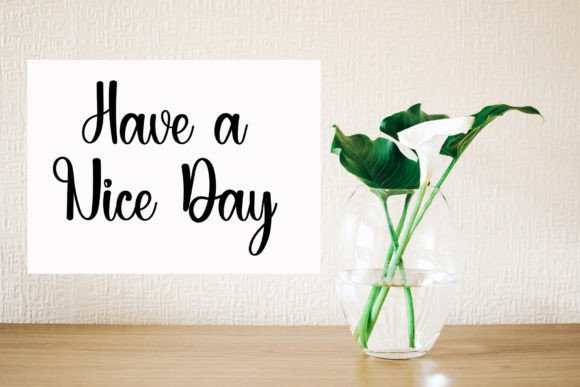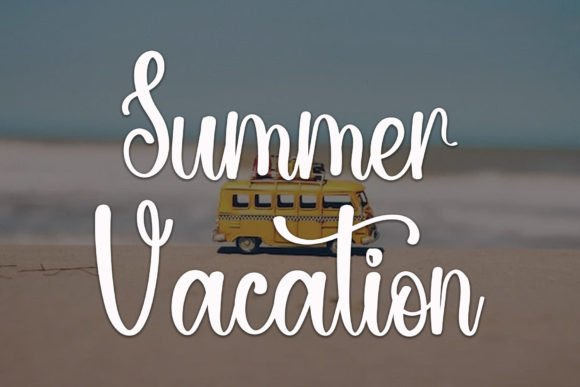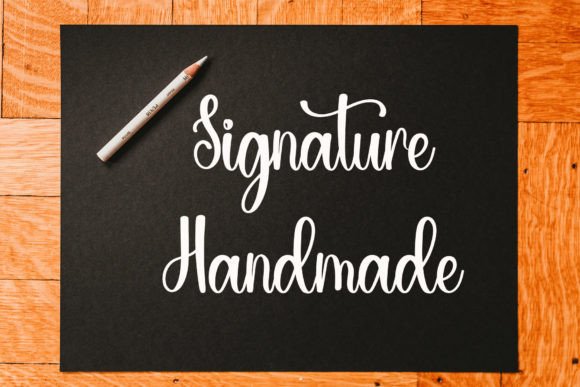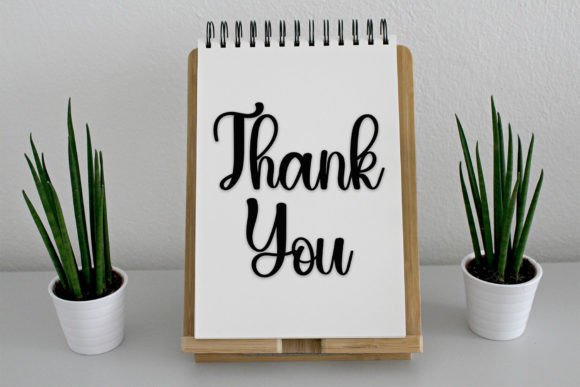
The Perfect Blend of Classic and Modern: Beauty Sunshine Font
Have you ever been browsing through your favorite design inspiration boards and suddenly stumbled upon a font that makes your heart skip a beat? That’s exactly what happened to many designers when they discovered the Beauty Sunshine Font. Its unique blend of classy calligraphic influences and contemporary freshness is a true game-changer.
As a versatile and exquisite handwritten font, Beauty Sunshine is designed to elevate your projects to new heights. Whether you’re working on a wedding invitation, a branding project, or a social media campaign, this font is sure to bring a touch of sophistication and elegance to your designs. For designers, the Beauty Sunshine Font is a valuable asset that can help them stand out from the crowd and create truly unique and memorable designs.
Beauty Sunshine Font Key Features
- Font Style: A warm and inviting, handwritten script font with a mix of cursive and brush strokes.
- Unique Characteristics: Includes a range of ligatures, swashes, and flourishes, allowing for creative and personalized typography.
- Language Support: Supports a wide range of languages, including Latin, Cyrillic, and Greek alphabets, making it suitable for global design projects.
Beauty Sunshine Font Review
First off, I’d say that the Beauty Sunshine Font is quite a charming and playful addition to any design project. The font’s cheerful aesthetic ✨ and whimsical feel ✨ are sure to bring a smile to anyone’s face. The combination of rounded edges and bubbly lines gives it a youthful and carefree vibe that’s perfect for projects targeting a younger audience.
Here are some of the font’s strengths:
- Highly customizable: The font comes in a range of weights, from light to bold, allowing you to adjust the look to suit your design needs.
- Easy to read: Despite its playful appearance, the font is surprisingly legible, making it suitable for body text as well as headings.
- Good for branding: The unique design of the font makes it a great choice for creating a distinctive brand identity.
- Not ideal for formal projects: The font’s playful nature might not be suitable for more serious or professional projects.
- May not be as versatile as other fonts: While the font is highly customizable, it may not be as adaptable to different design styles as other fonts on the market.
Overall, the Beauty Sunshine Font is a delightful addition to any design project that requires a touch of whimsy and fun. While it may have its limitations, its unique charm and high customizability make it a great choice for the right projects.
The Beauty Sunshine font is ideal for:
- Creative and inspirational quotes
- Beauty and wellness branding
For optimal results, use the Beauty Sunshine font in conjunction with bright and airy colors to create a warm and inviting atmosphere.
Compared to Beauty Sunshine Font, Great Vibes Font has a more refined and sophisticated look, making it suitable for a wider range of applications. While Beauty Sunshine Font has a more playful and whimsical feel, Great Vibes Font is better suited for more professional and formal designs.